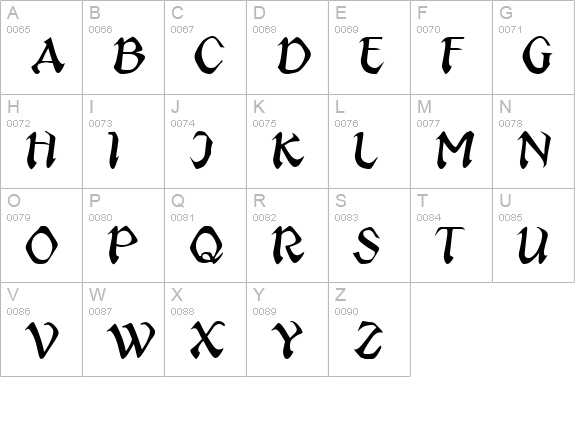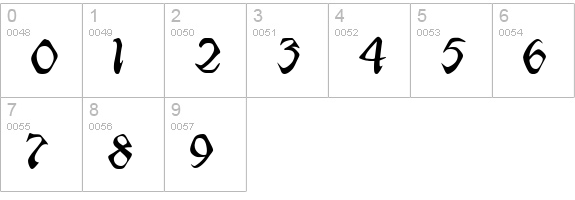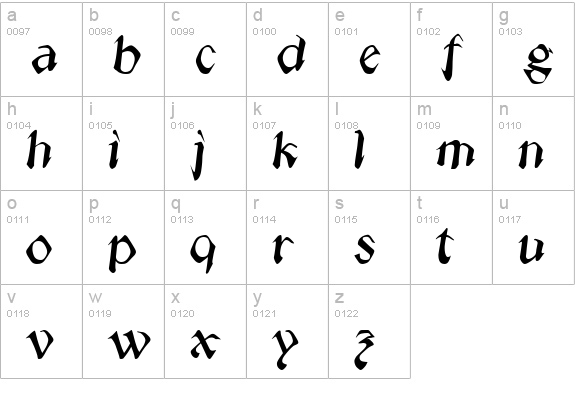
Public Utility Jeepney Font Details
Public Utility Jeepney font is a versatile and dynamic typeface inspired by the iconic Jeepney vehicles seen on the streets of the Philippines. This font captures the essence of Filipino culture with its bold and rugged design, making it perfect for a wide range of design projects. The Public Utility Jeepney font is not only visually engaging but also highly readable, making it suitable for both display and text use. What sets this font apart is that it is available for free download at FontsMarket.com. This means that designers and enthusiasts alike can easily access and use this unique typeface without any cost. Whether you're working on a branding project, poster design, or any other creative endeavor, the Public Utility Jeepney font is a fantastic choice that combines style, functionality, and affordability. Download this font today and add a touch of Filipino flair to your designs!